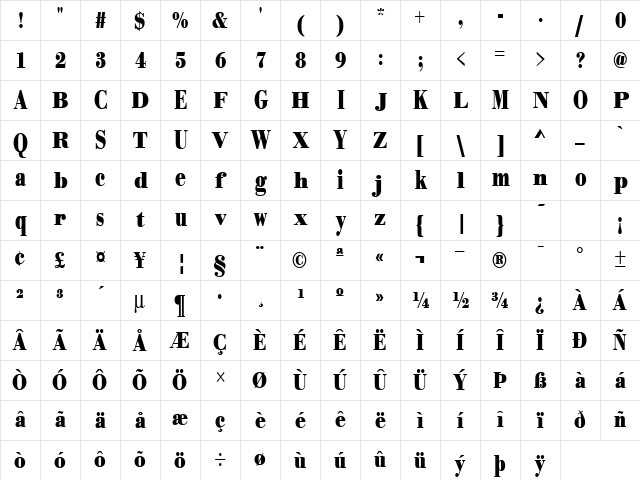
UnitedLand Regular
Design Context for UnitedLand
UnitedLand is a composed and adaptable typeface that performs quietly and consistently across a wide range of design contexts.